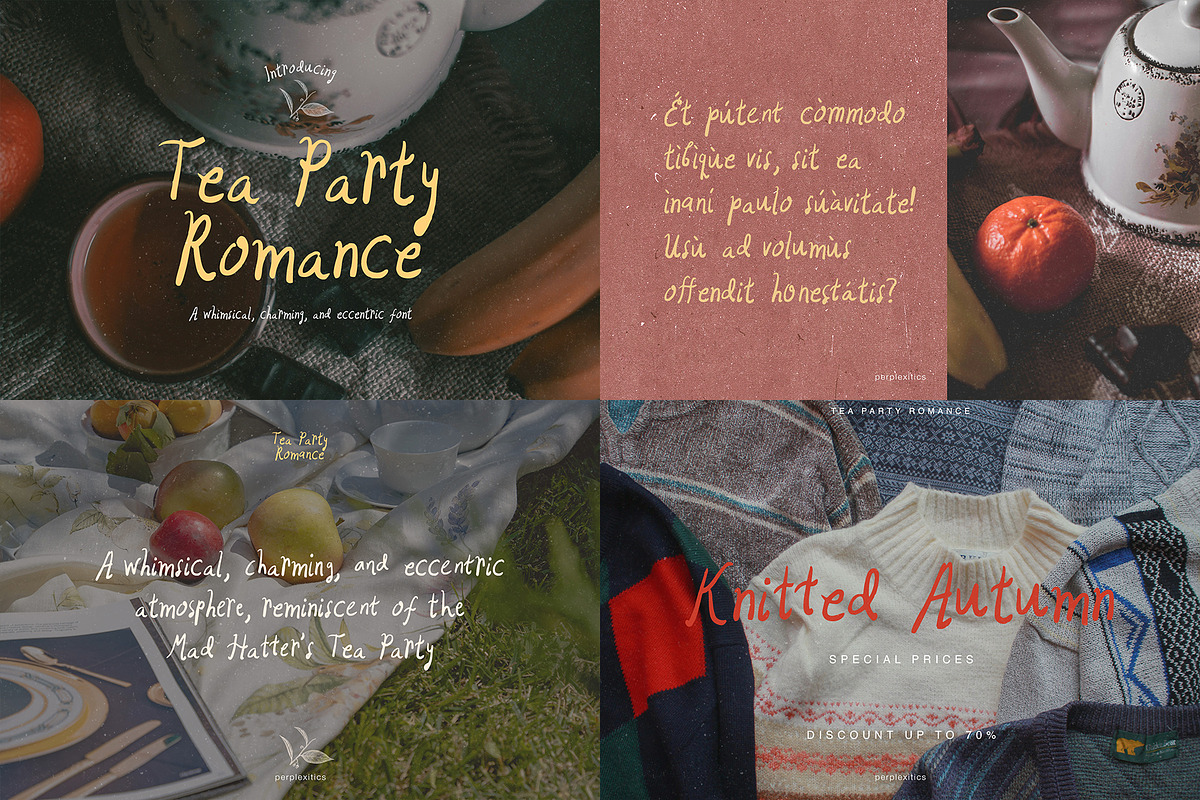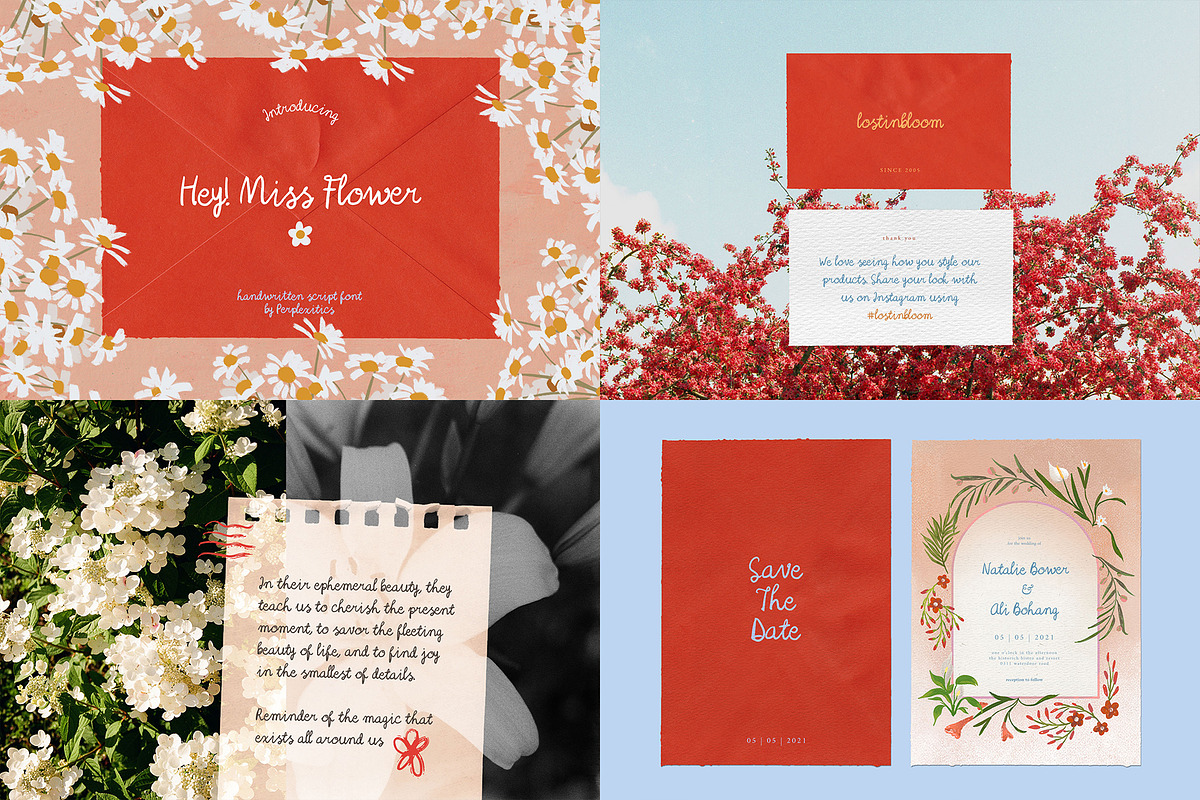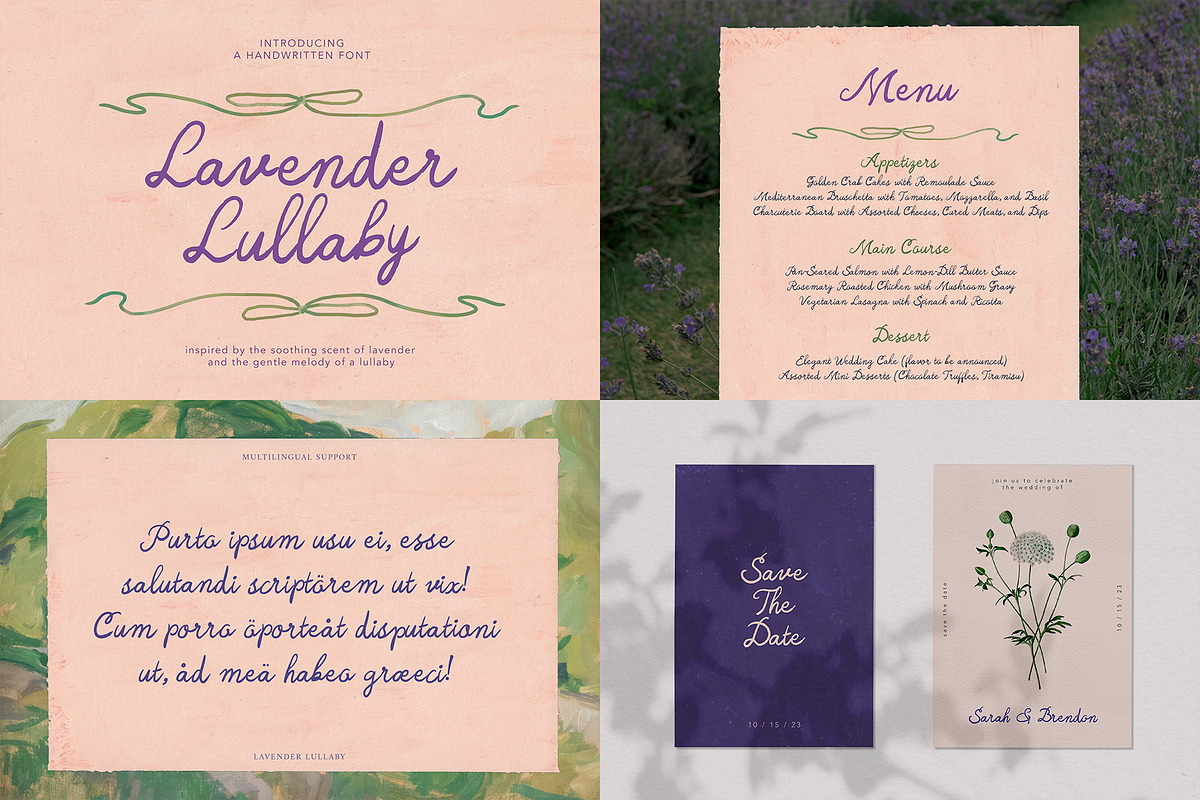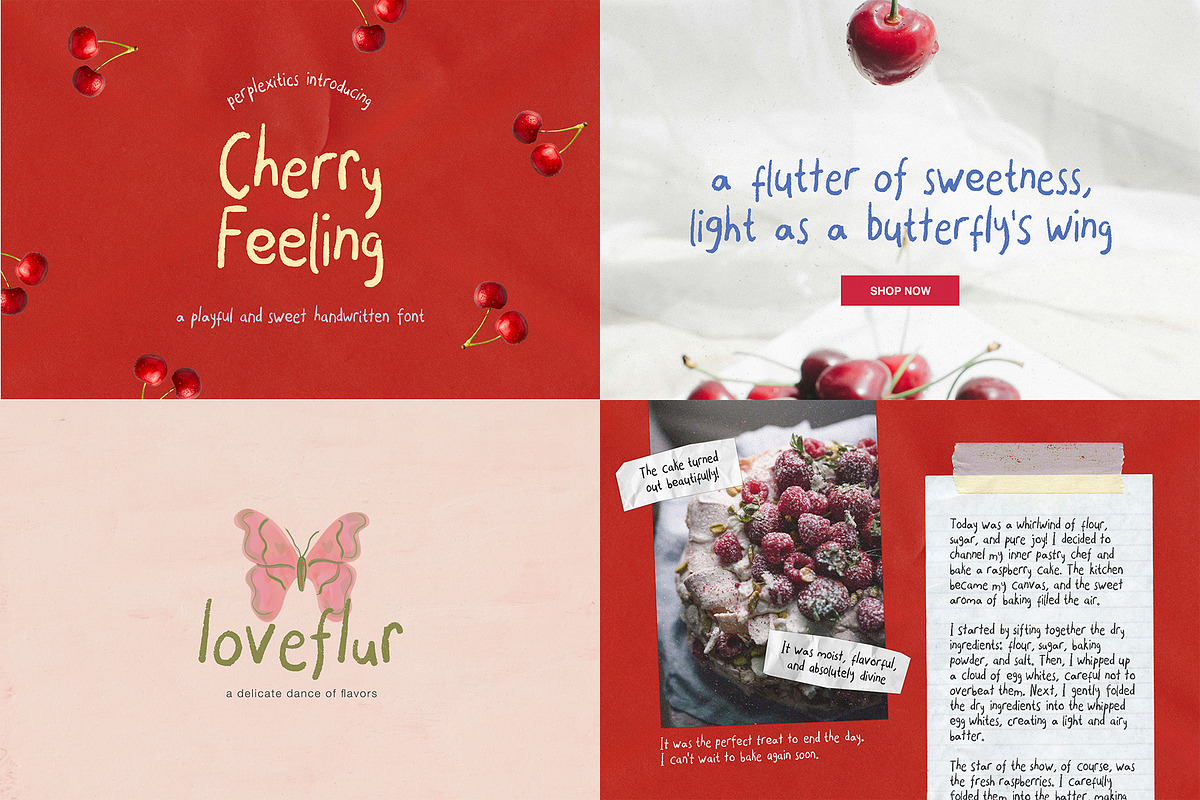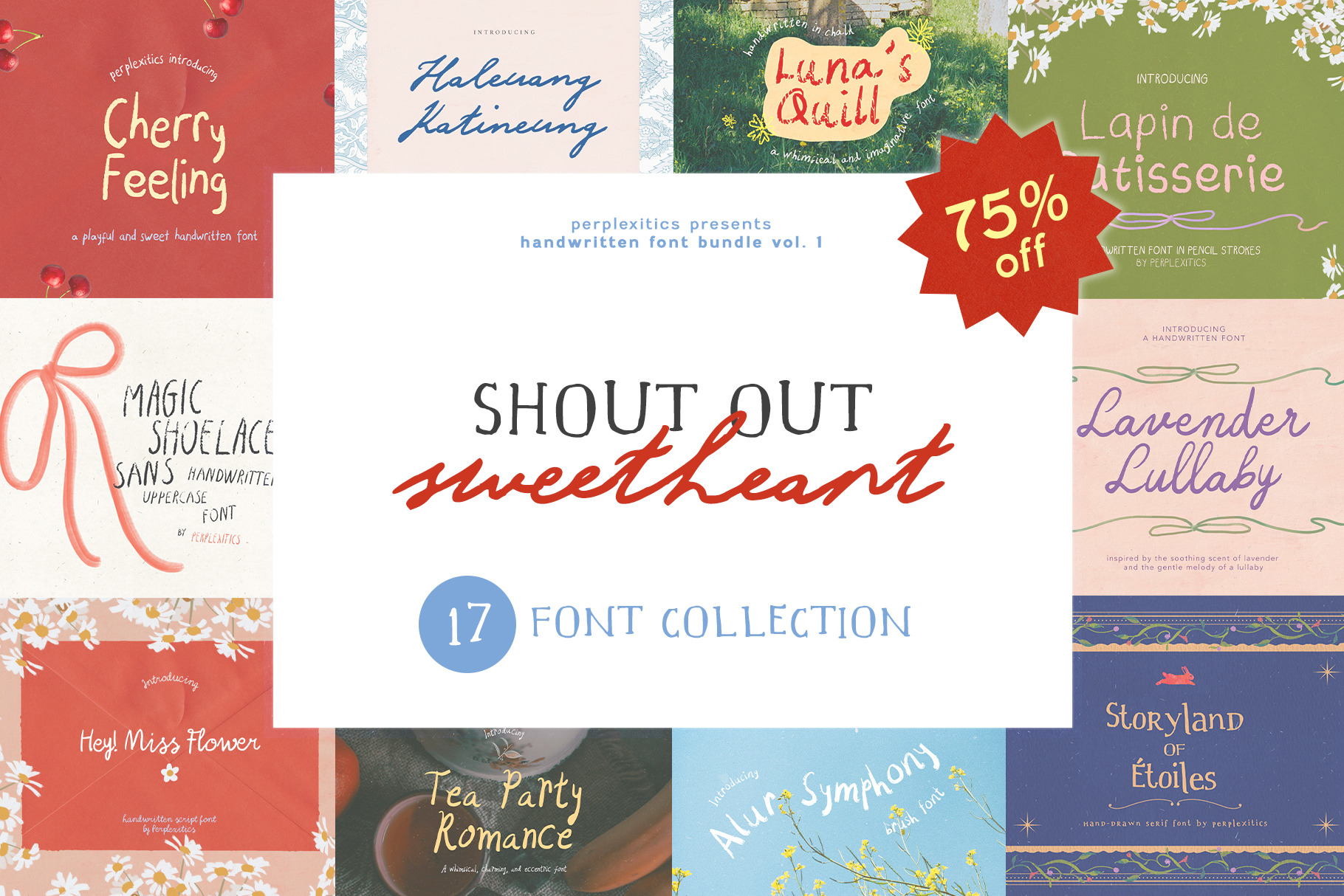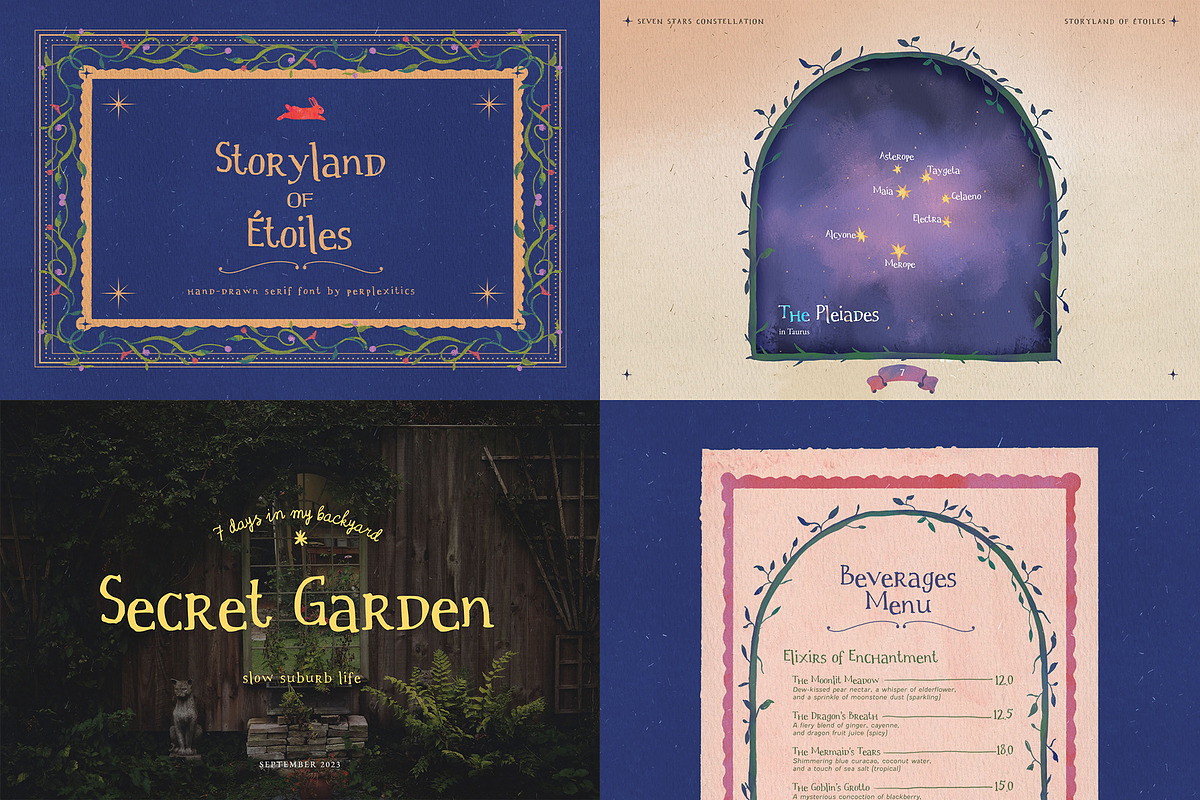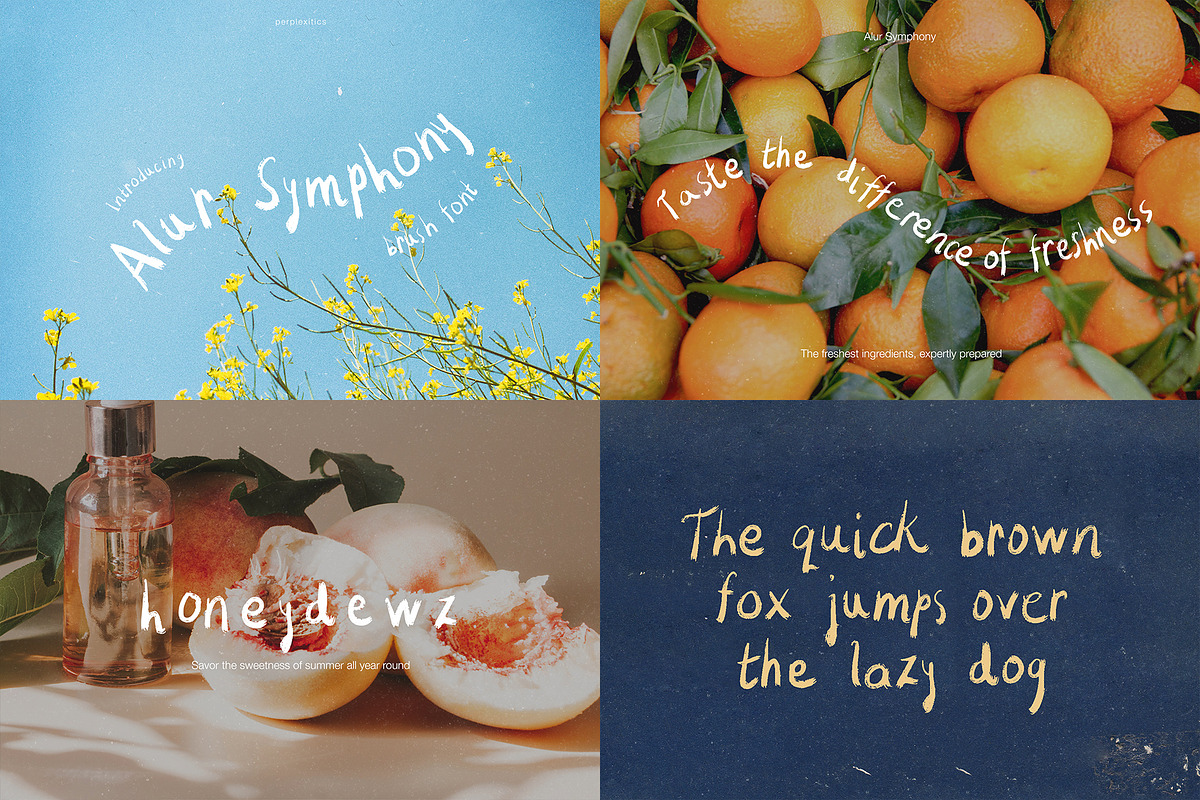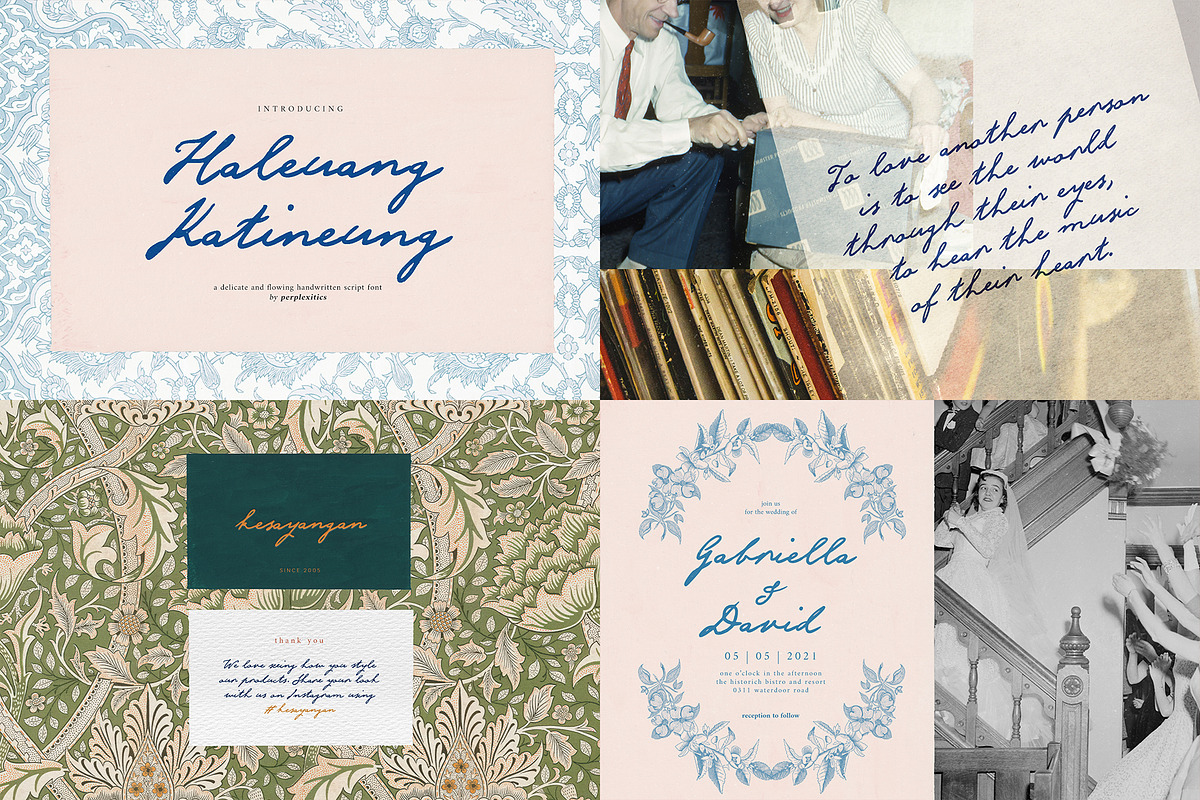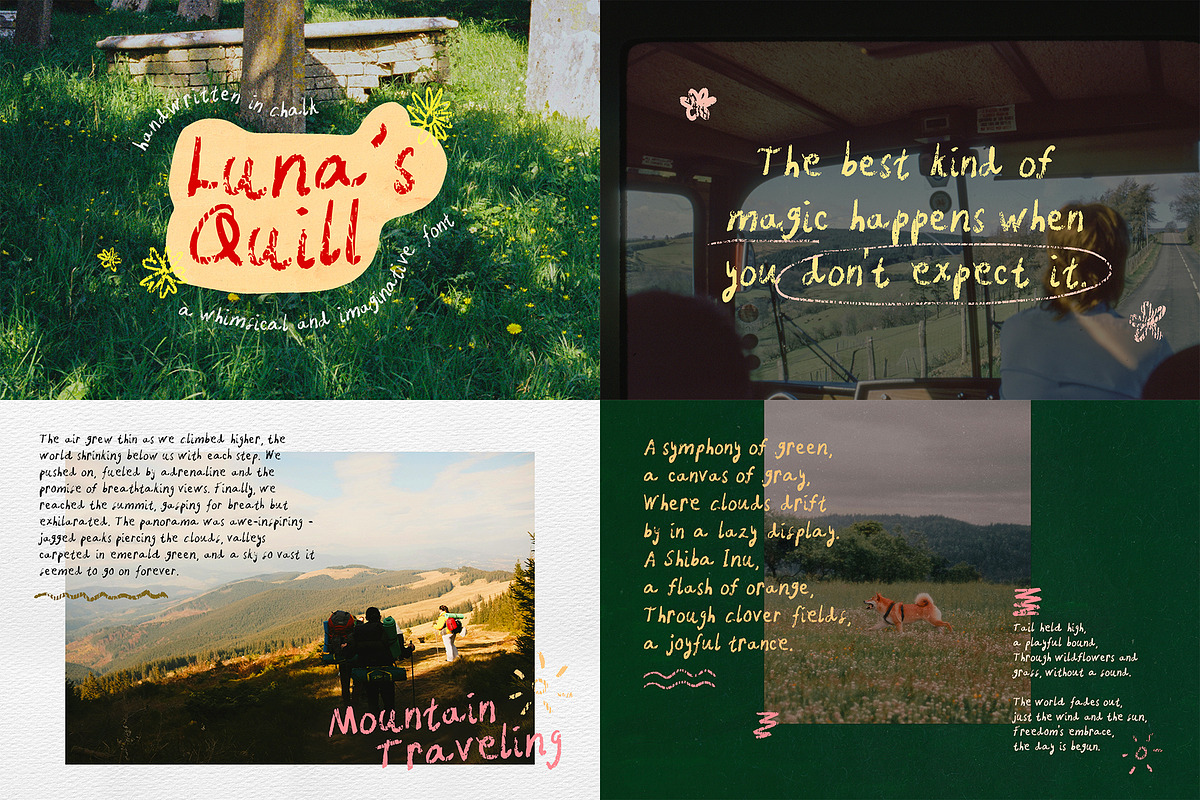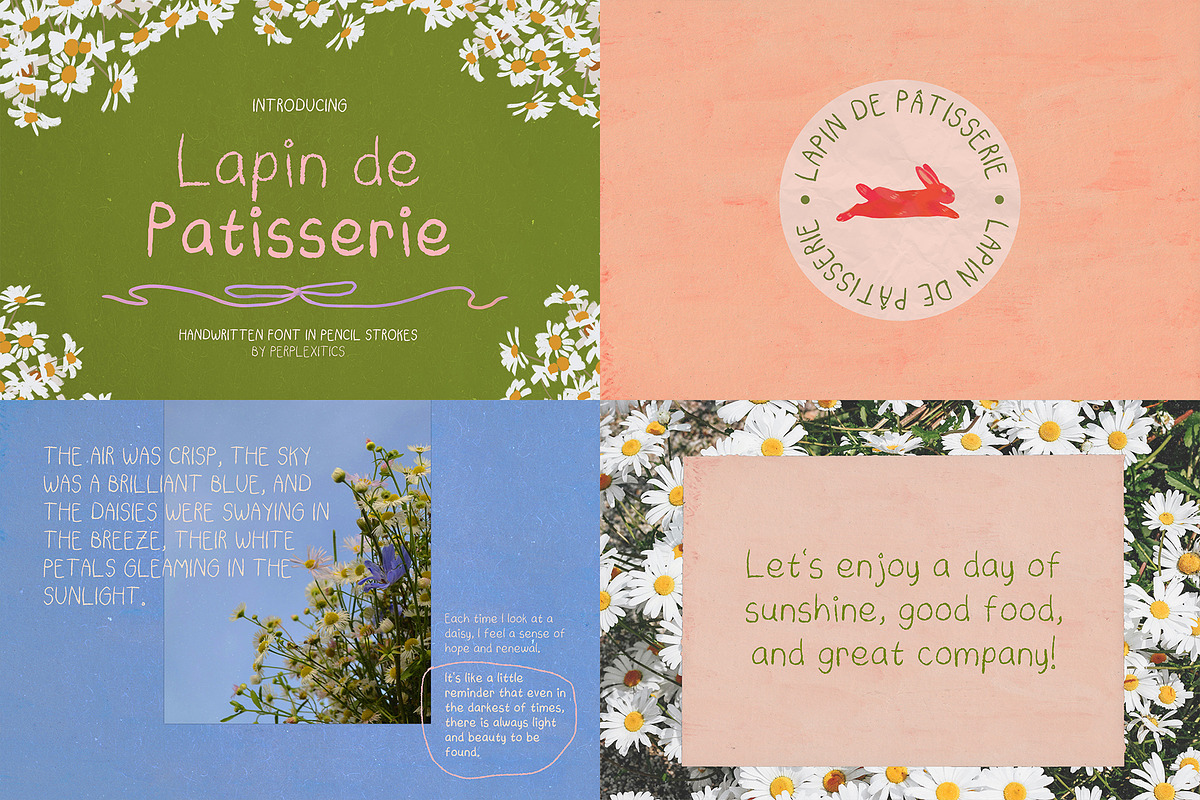
Shout Out Sweetheart - Handwritten Font Bundle Vol.1 // SALE
Fall head over heels for this irresistible collection of 17 unique fonts across 10 stunning typefaces! Designed to capture the essence of love, Shout Out Sweetheart features a diverse range of styles, from elegant scripts perfect for romantic cards to playful fonts ideal for social media posts. All multilingual support.